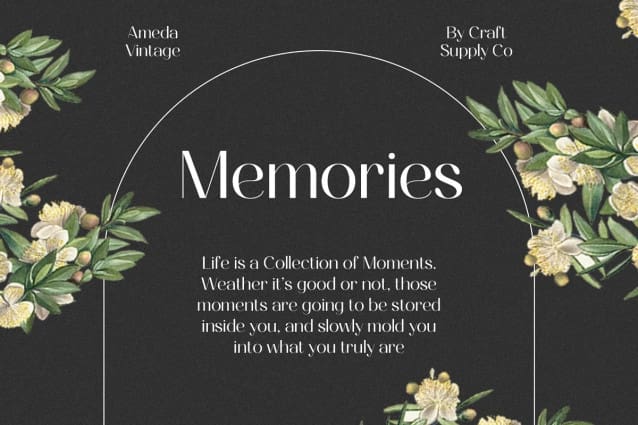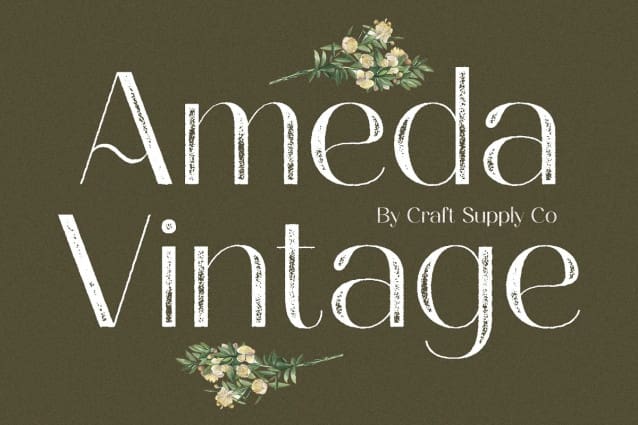
Ameda Vintage Font
Ameda Vintage Font – Sans Serif Stamp is a sans serif font with a unique twist. It blends vintage charm with modern simplicity. This font captures the essence of classic typography. Its design is perfect for various creative projects.
Distinctive Features Ameda Vintage stands out with its stamp-like rough texture. It resembles ink stamps used in the past. The rough edges give it a hand-drawn feel. This texture adds depth and character to the font.
Versatility in Design This font is versatile for both digital and print media. It suits logos, posters, and even web design. Its clear, readable style makes it ideal for headlines and captions. Ameda Vintage adapts well to different design needs.
User-Friendly and Accessible The font is easy to use for designers at all levels. It doesn’t require complex software or skills. Ameda Vintage is accessible, catering to a wide range of users. Its straightforward nature ensures it fits various creative contexts.